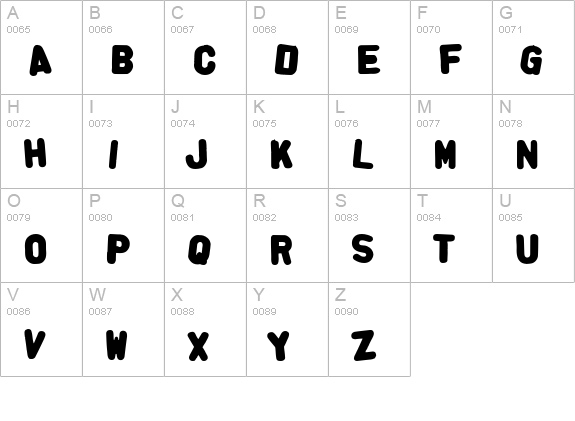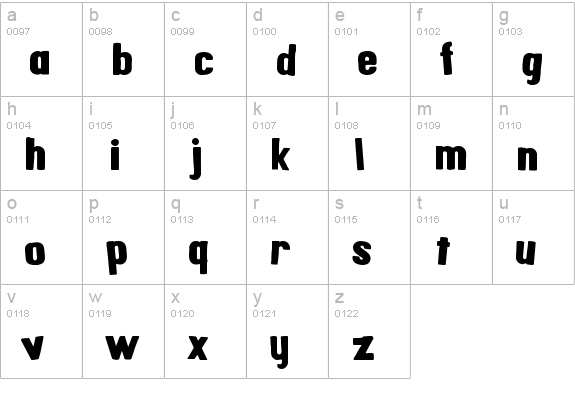
AlphaFridgeMagnets Font Details
Introducing AlphaFridgeMagnets font - a charming and quirky typeface that will add a fun touch to your designs. This font is perfect for creating eye-catching headlines, playful logos, and unique branding materials. The irregular shapes and uneven lines give AlphaFridgeMagnets a handmade and artistic feel, making it stand out from the crowd. What's even better is that AlphaFridgeMagnets font is available for **free** download at FontsMarket.com. Yes, you heard it right! You can easily get your hands on this delightful font without spending a dime. So why wait? Add a touch of whimsy to your projects with AlphaFridgeMagnets font today!